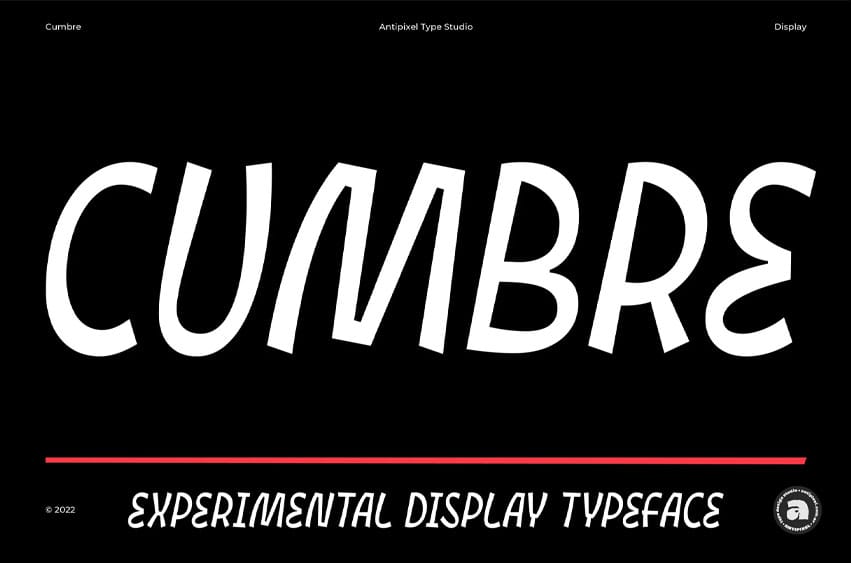
Cumbre Font is a slanted display type with unorthodox anatomy, a dynamic rhythmic structure, movement expression, and intense visual language. An eccentric rebel with ribbon-like moves, a balanced extrovert that makes meticulous use of ink traps.
Cumbre is a tall font that blends a western and rustic spirit with the energy of comic book logotypes and the grit of a distressed stamp style. It moves easily between y2k fantasy and adventure aesthetics while staying trendy and adaptable. With marker-inspired strokes that feel both punk and rough, the typeface leans into grunge and cyberpunk moods while keeping a funky, rounded edge that makes it playful and versatile.
Both the name and design got inspiration from mountain peaks. “Cumbre” in Spanish means summit, and that’s the motive for the spiked design and the angular serrated structure.
Cumbre is built by balancing sharp angles and adventurous curves. The stems are spiky, and they vary in width. Cumbre is oblique and unicase. It has condensed proportions, moderate weight contrast, spacious counters, pointy terminals, and square ink traps.
Cumbre is meant for large display settings to make the most out of the precise outlines and the clean intersections.
The font styles: ‘Sharp’ has straight paths and precise intersections. ‘Round’ has the same outlines but with round corners. ‘Stamp’ has irregular, wavy, distressed contours and heavy swelling at intersections.
- Unicase font with different uppercase & lowercase
- Numbers, punctuation, ligatures, decorative characters, and more!